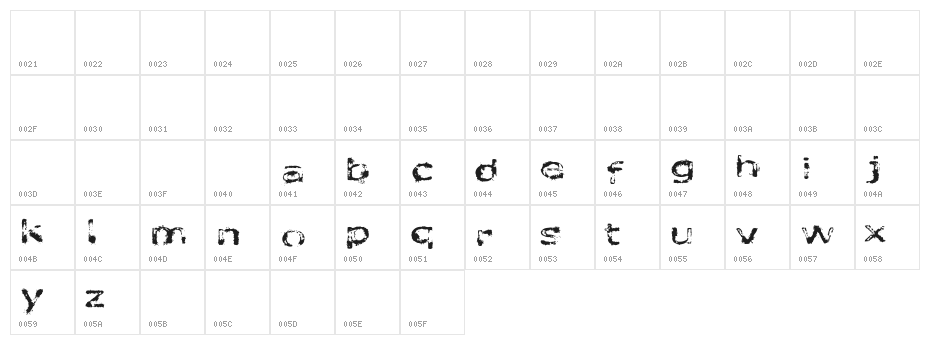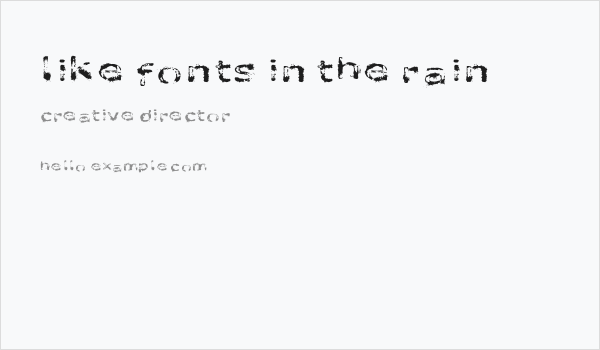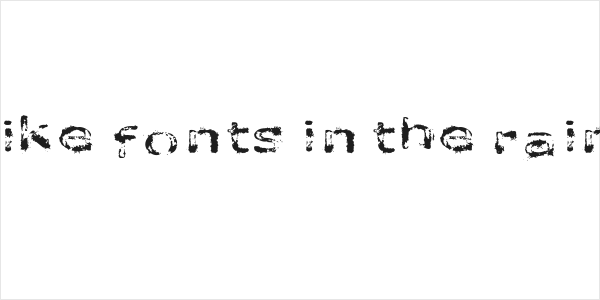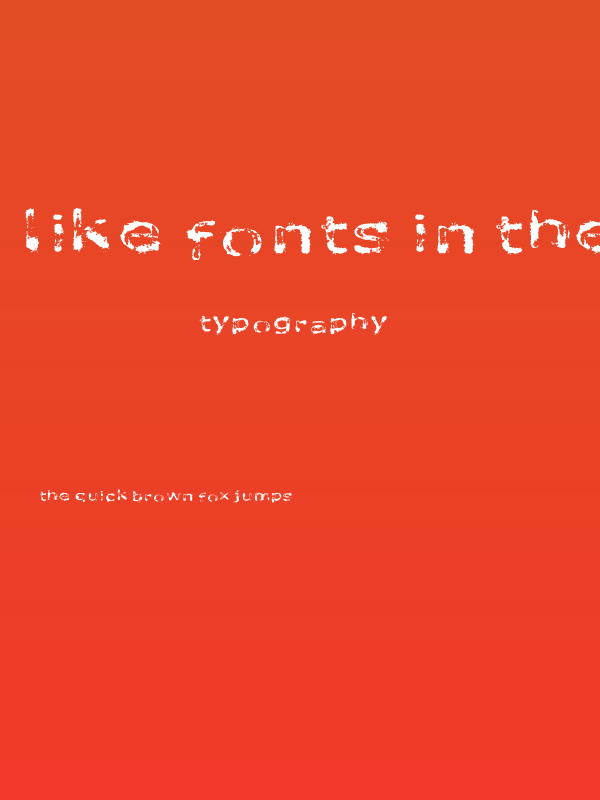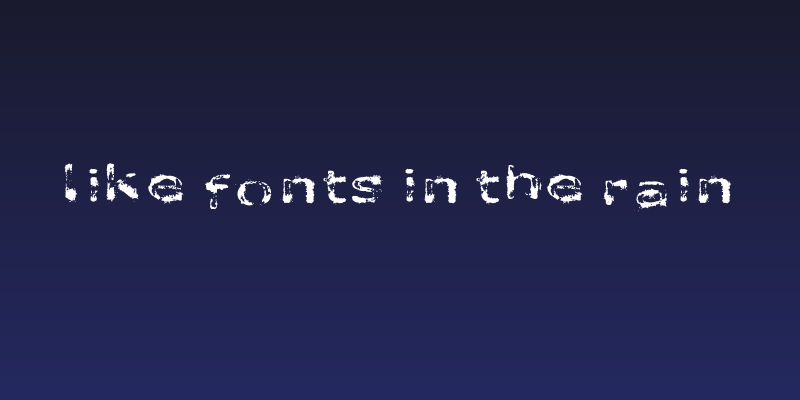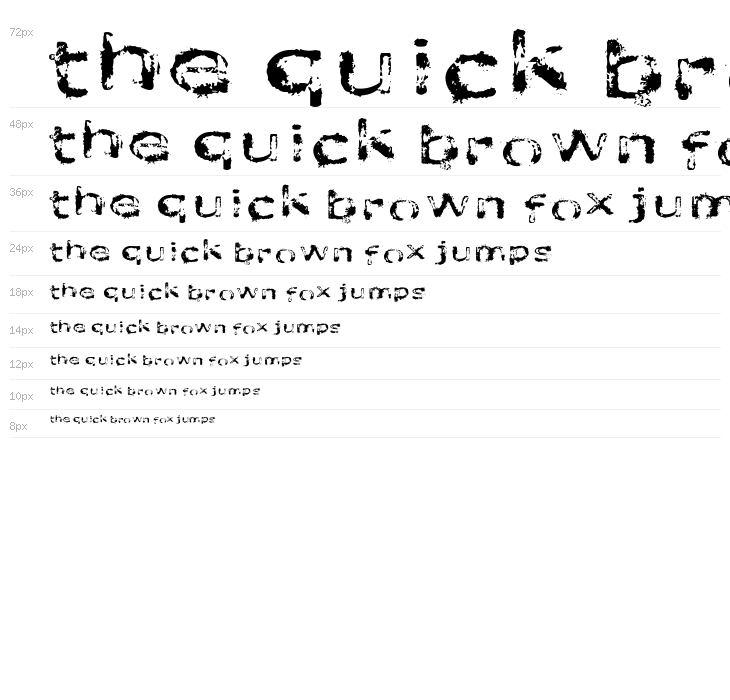
like fonts in the rain Font
like fonts in the rain Description
This font features a distressed, weathered appearance, reminiscent of text that has been exposed to the elements. The characters are irregular and textured, giving them a unique, grunge-like aesthetic. Each letter appears as if it has been partially eroded or splattered with ink, creating a dynamic and edgy look. The font maintains a consistent baseline, but the varying levels of distress add a sense of movement and unpredictability. This style is particularly effective for creating a raw, organic feel in design projects.
Overall StyleGrunge, Edgy, Distressed
Proposed ProjectsIdeal for album covers, posters, urban-themed designs, and any project seeking a raw, edgy aesthetic.